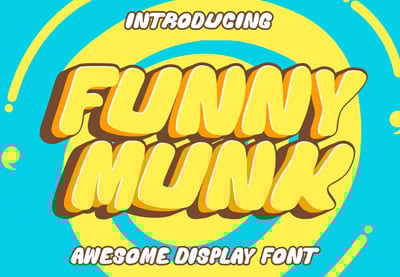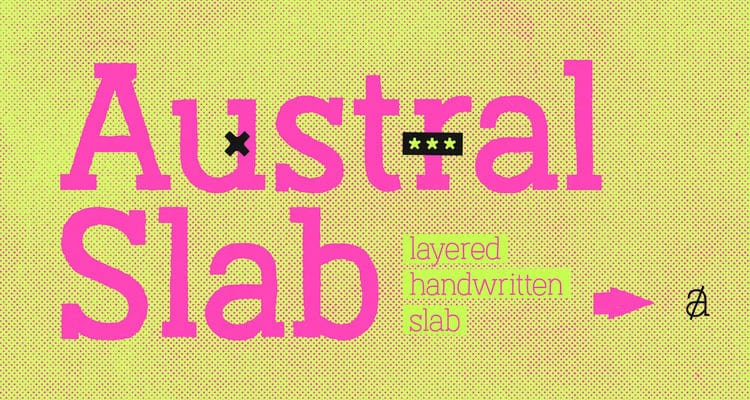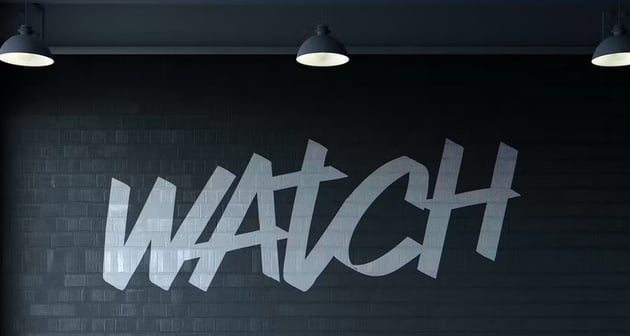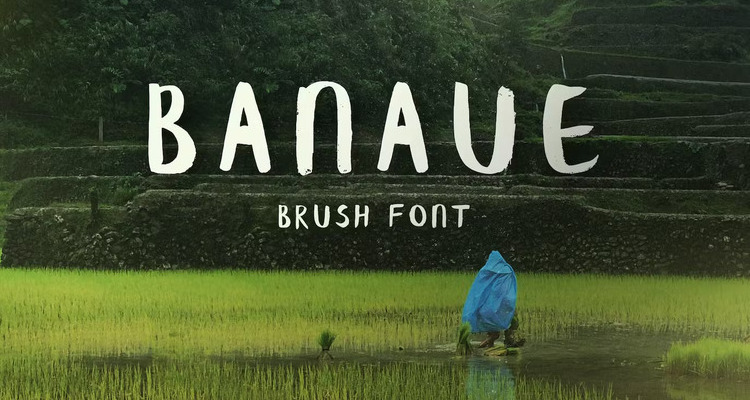
20+ Best Free Fonts for Designers (Logos, Packaging, and More)
20+ Awesome Fonts From Envato Elements
1. Honeycomb Font (OTF, TTF)
This elegantly designed font would be an excellent choice for any font library. It's a legible script that comes with 24 gold foil patterns, 7 bonus ligatures, and 26 stylistic alternates. It would pair well with a number of sans serifs.
2. Dotcom Font Family (OTF, TTF)
A clean sans serif font can prove to be such a versatile addition to your design toolkit. This is one of those fonts that can hold its own or act as a perfect supplement to other fonts.
3. Lovina Fonts Family (OTF, TTF, WOFF)
Calligraphy fonts have been really trendy in recent years. This font family has plenty to offer, including different styles and swashes. It's a great choice for invitations, high-end branding, and more.
4. Herbal Font Family (OTF)
Here's a stylish sans serif font family that includes five fonts, with rounded and outlined variants. This one is a wonderful choice for points of emphasis as it's bold, clean, and eye-catching.
5. Midnight Rider (OTF, TTF, WOFF)
This urban-style font has high contrast. Its look is trendy, and fonts like this one often find a successful place among sport projects, posters, and branding.
6. Ashcroft Font Family (OTF, TTF, WOFF)
You can also find font duos like this one on Envato Elements. Download two companion fonts together, like this bold sans serif font and this energetic script. They make a lovely pair.
7. Avera Sans (OTF)
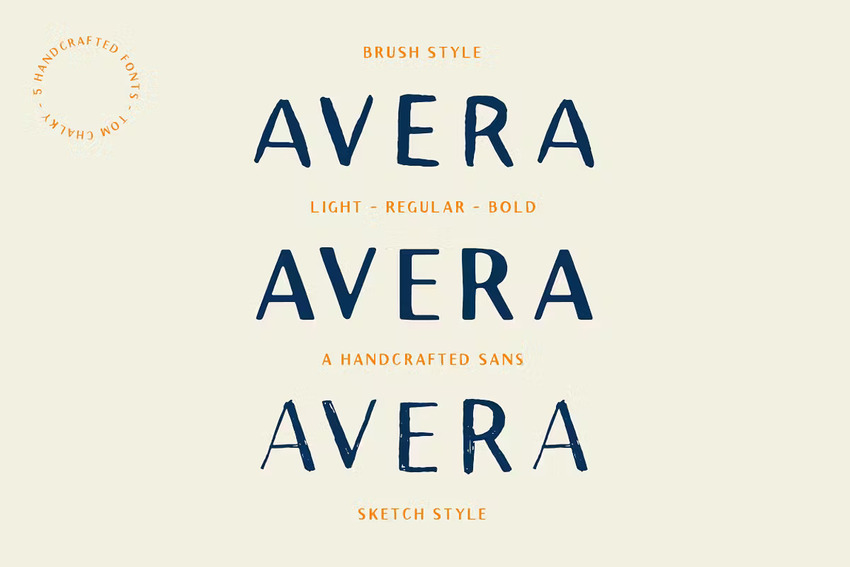
Here's a beautifully handcrafted sans serif font with a bit of texture. Imagine this one for branding, a logotype, or even for a band poster. It's a multilingual font with the full Latin 1 glyph range.
8. Goodwyn Retro Fonts (EOT, OTF, SVG, TTF, WOFF)
Love a stackable, retro look? Check out this stylish collection of several different text styles. Use it to create a logo or to add a rustic feel to your next packaging design project.
9. Reef Round Font (OTF)
Geometry can be such an elegant inspiration when it comes to type design. Check out this simple, rounded font. It's bold and clean, and it has so much versatility. It offers over 500 characters.
10. Carosello Font (OTF, TTF)
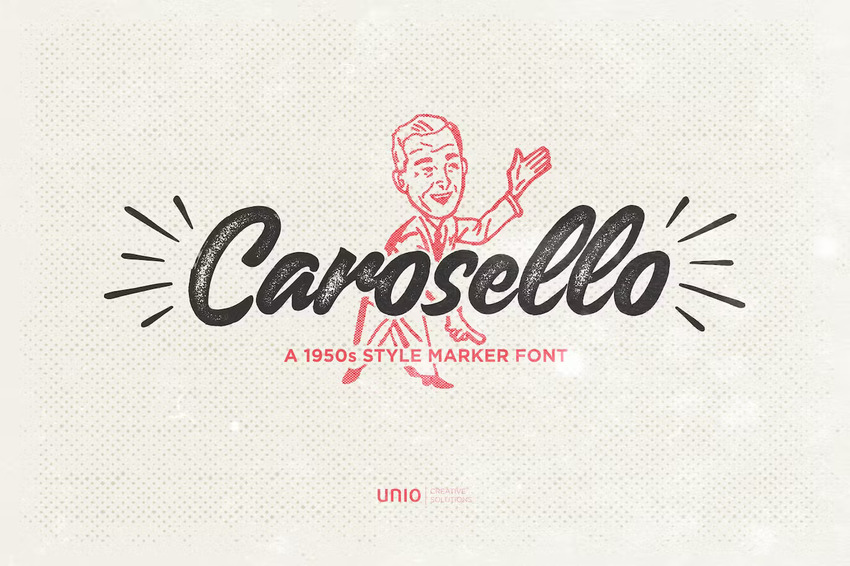
This font mixes the look and texture of a vintage font with the clean, bold flavor of a professionally designed script. It's a stylish, memorable choice that's ideal for menus, branding, posters, and so much more.
11. Bay Area Font Family (OTF, WOFF)
Here's another stylish font duo that you can download right now. This serif font has such interesting texture, and the script font makes a perfect pair. It also comes with a collection of symbols, so you can experiment with branding, logo concepts, and more.
12. Scarlett Font Family (EOT, SVG, WOFF)
This beautiful script font is sure to attract attention. Try pairing it with photography, or try it in your next print project in an eye-catching color or foil. Calligraphy fonts like this one tend to be really trendy and popular.
13. Claire Story Handwriting Font (OTF, TTF, WOFF)
Prefer a different kind of handwritten font aesthetic? Check out this friendly font. Try it for informal design situations, children's books, and even social media design projects.
14. Amithen Brush Font (EOT, OTF, SVG, TTF, WOFF)
A textured brush font can add an organic feel to your compositions. Enjoy the natural look of this script font in your next T-shirt design, album cover, poster design, and more.
15. CA Texteron Serif Font Family (EOT, OTF, WOFF)
Choose from six weights in this versatile font family. It's a great fit for body copy, but you could also use the bold variants to create emphasis. This one is a great fit for a new staple font in your collection.
16. Original Burger Font (OTF)
Check out this fun, chalkboard-inspired look. Use this font to create stacked type, type poster designs, and other projects that would benefit from a natural, hand-drawn look.
17. Zenzero Sans (EOT, OTF, SVG, TTF, WOFF)
This stylish font has so many ligatures to choose from. Use this font for display type, logo design, headlines, and more. Choose between the regular and round variations.
18. Lost Village Handwriting Font (+ Web Fonts) (OTF, TTF, WOFF)